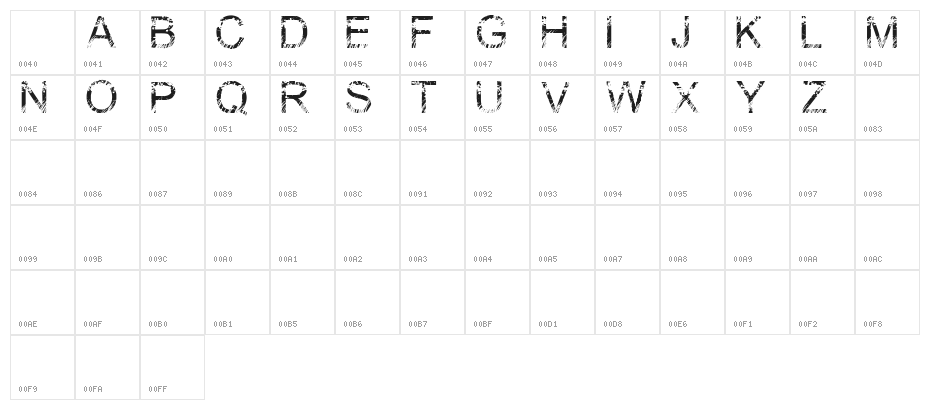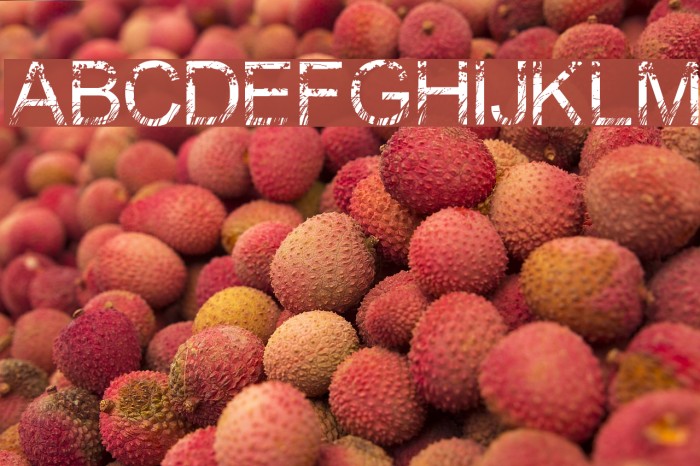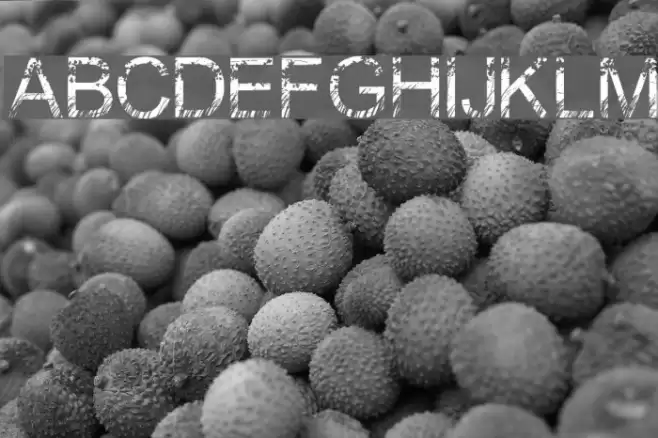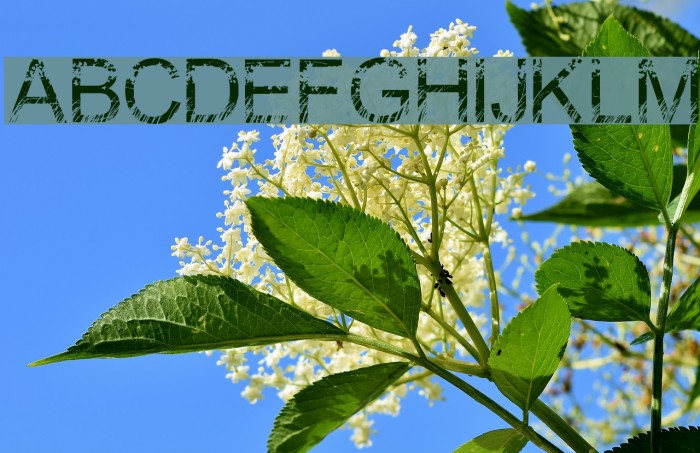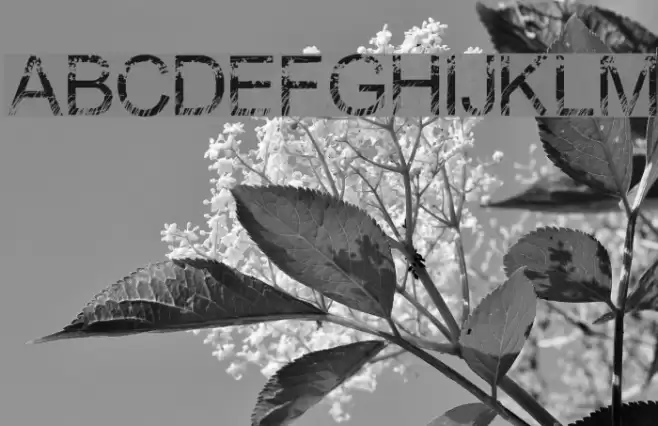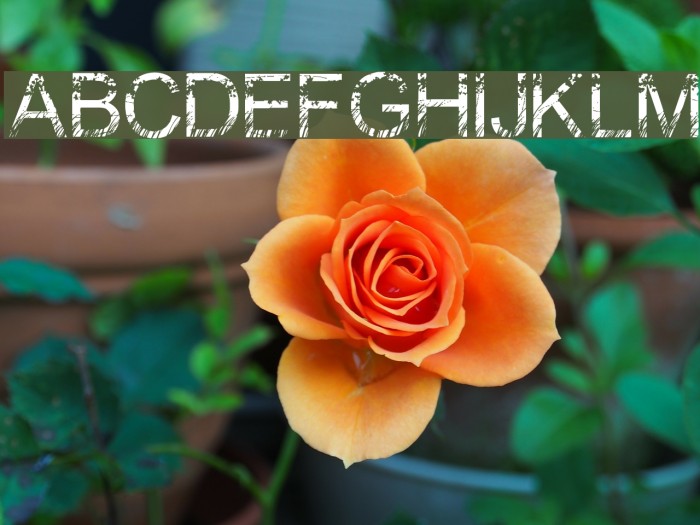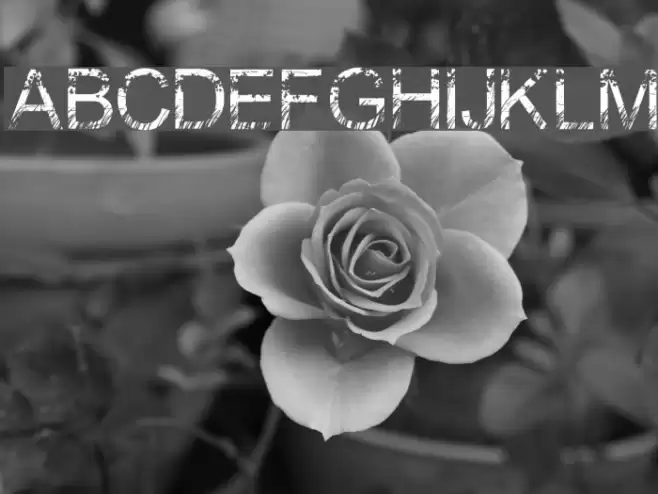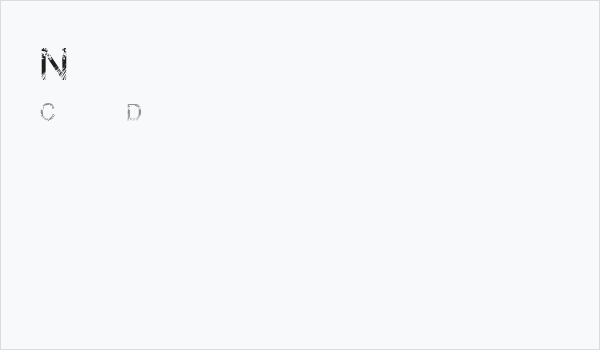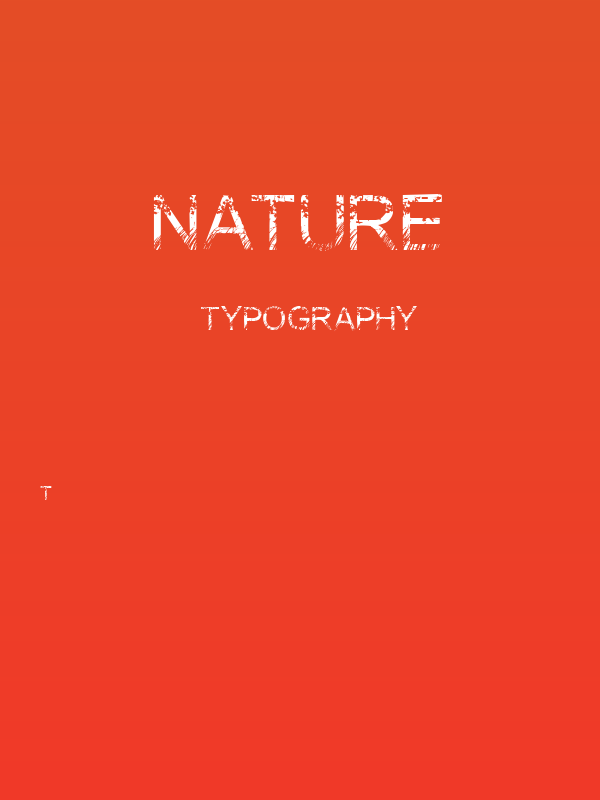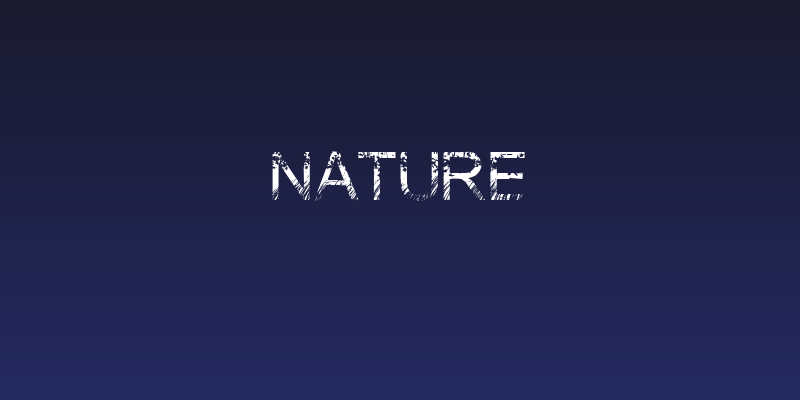
Nature Font
Nature Description
This font features a rugged, textured appearance that mimics the natural, uneven lines found in nature. The uppercase letters are bold and prominent, with a distressed effect that adds character and depth. The strokes are irregular, giving each letter a unique, handcrafted feel. This style is reminiscent of organic materials, making it ideal for projects that require an earthy, rustic touch. The font's distinct texture makes it stand out, ensuring that any text is both eye-catching and memorable.
| Overall Style | Rustic |
| Proposed Projects | Ideal for eco-friendly branding, outdoor adventure posters, rustic-themed invitations, and nature-inspired logos. |